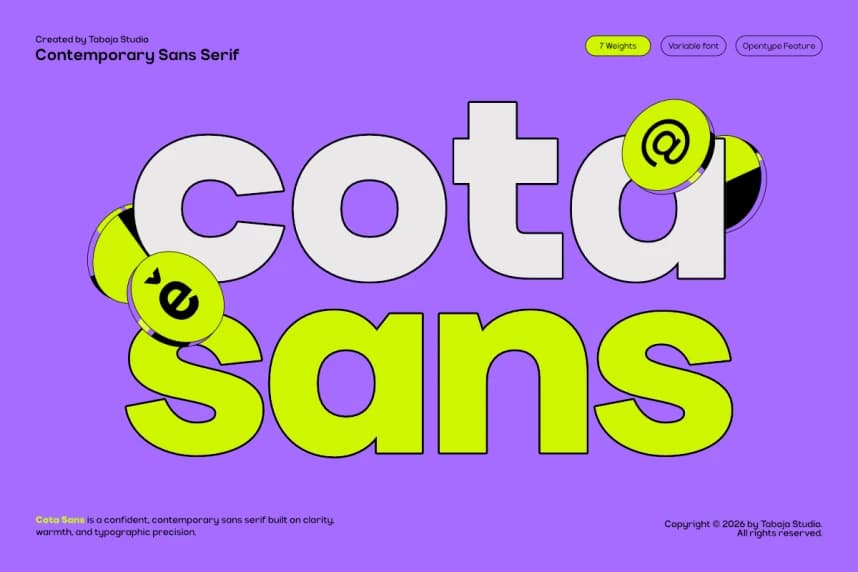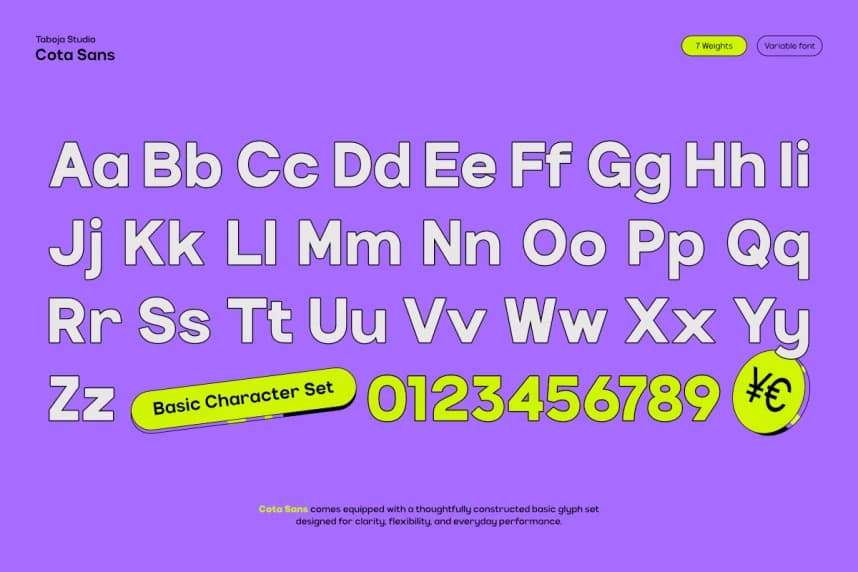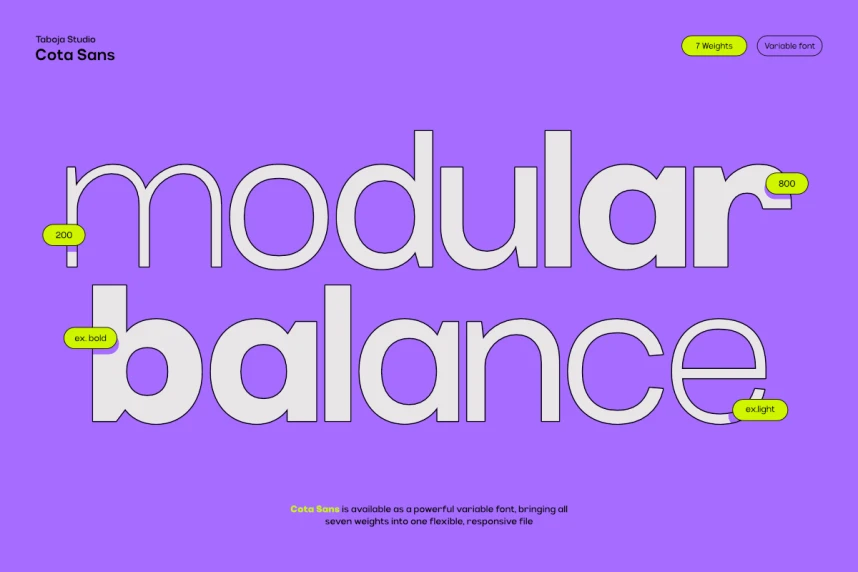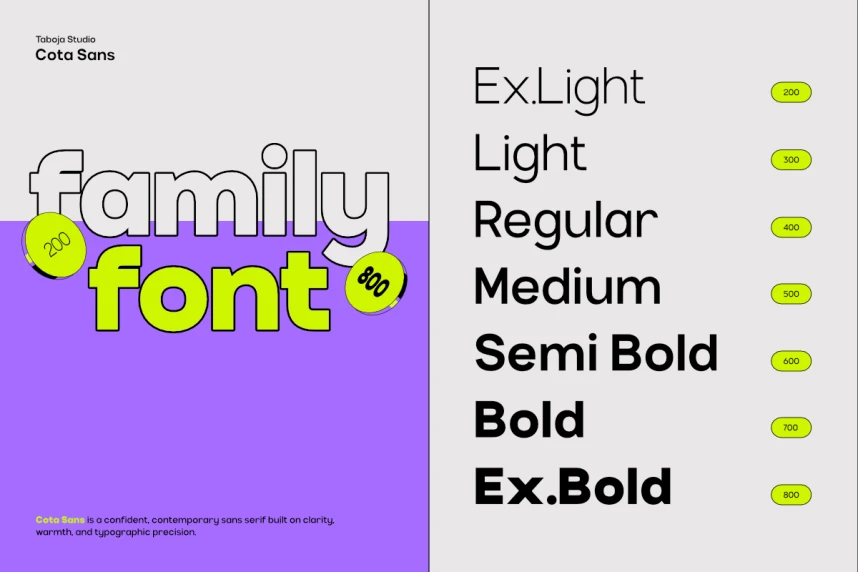
TBJ Cota Sans Font
TBJ Cota Sans Font was not created to shout. It was designed to speak clearly, confidently, and with purpose. In a world where visual noise competes for attention, Cota Sans stands as a quiet system of order.